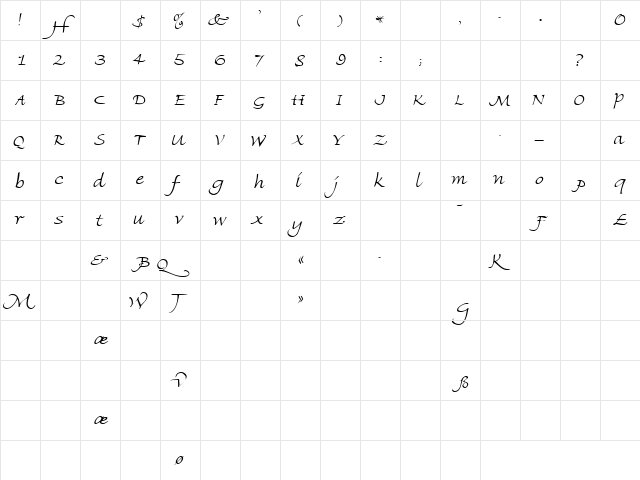
CremeSSK Regular Font Preview
CremeSSK Regular
CremeSSK Regular Font Details
Design Context for CremeSSK Typeface
CremeSSK is a composed and adaptable typeface that performs quietly and consistently across a wide range of design contexts.